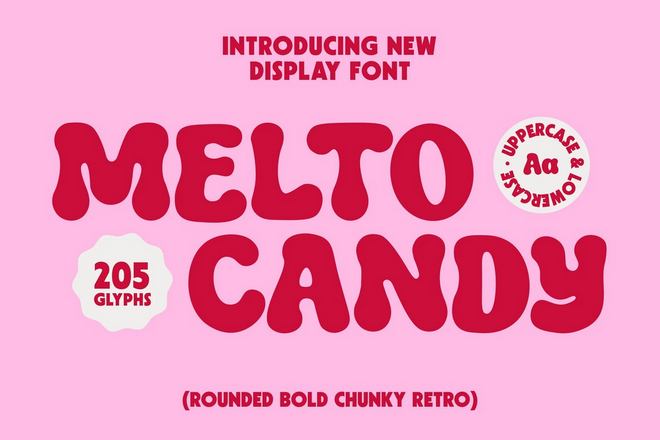
20+ Tasty Candy Fonts for Sweet & Colorful Designs
Nothing adds instant fun to a design quite like a bold candy-inspired font.
Candy fonts are designed with soft curves, bubble shapes, and exaggerated lettering styles that mimic the playful look of sweets and dessert packaging. The result is typography that feels bright, energetic, and full of personality.
These fonts are especially popular in packaging, social media graphics, party invitations, café branding, and children’s designs where bold visual impact matters most.
Below, you’ll discover a curated collection of the best candy fonts for sweet and colorful designs.
These fonts will help you create playful visuals that feel vibrant, cheerful, and impossible to resist.
Lolipop - Fun Candy Font
Lolipop is a playful, script-style typeface perfect for adding whimsy to invitations, branding, and posters. With tons of glyphs, alternates, and ligatures, this font offers creative flexibility. Accessible on both PC and Mac, it supports multilingual use and is perfect for various sweet and kid-friendly product packaging designs.
Candy Machine - Playful Display Font
Candy Machine is a candy-themed font known for its smooth curves and elegant ligatures, perfect for adding charm to your projects. Ideal for logos, invitations, branding, packaging, and more, this versatile font shines in both large and small sizes. It supports various languages and offers uppercase, lowercase, punctuation, and symbols in OTF and TTF formats.
Candy Cake - Sweet Candy Font
Candy Cake is a charming and playful candy-themed font that adds a delightful touch to any design project. With its sweet and cute cartoon comic style, it’s perfect for bringing a fun, whimsical element to your work. Available in TTF, OTF, and WOFF formats, it’s a versatile choice for all your creative needs.
Booba Candy - Bold Creative Font
Booba Candy is a bold and playful candy-themed font inspired by bubbles and balloons. With its light and airy feel, this typeface is perfect for creative projects, offering a soft and friendly vibe with its round edges. Ideal for headings and logos, Booba Candy is versatile and easy to read, suitable for both digital and print media.
Candy Form - Playful Display Font
Candy Form features thick, rounded letters with a soft, inflated look that creates a friendly and approachable feel. Ideal for candy-themed designs, it suits logos, packaging, posters, and more. Its bold structure ensures strong visibility, making it perfect for joyful branding. With expressive shapes and easy readability, it’s a fun choice for both creative studios and confectionery businesses.
Sour Candy - Handwritten Font
Sour Candy is a bright and energetic handwritten font that captures the playful essence of its name. With smooth curves and bouncy strokes, it adds a lively, cheerful touch to any project. This font includes uppercase and lowercase letters, numbers, punctuation, multilingual support, and is PUA encoded.
Melto Candy - Chunky Display Font
Melto Candy is a bold, chunky display font that exudes a playful and cheerful vibe with its sweet, bubbly letterforms. Perfect for grabbing attention, it enhances branding, packaging, posters, kids’ designs, logos, and social media graphics. With its soft curves and candy-inspired style, Melto Candy brings fun and vibrant energy to any project.
Sweet Candy - Creative Script Font
Sweet Candy Script is a delightful candy-themed font that combines beauty and modernity. Perfect for weddings, branding, logos, and quotes, it adds a charming touch to any project. Sweet Candy includes ligature, beautiful alternates, and multilingual support, available in OTF, TTF, and WOFF formats.
Candy Machine - Playful Font
Candy Machine is a playful and versatile candy-themed font that adds visual elegance with its smooth curves and beautiful ligatures. Perfect for projects like logos, invitations, branding, and more, it suits any size and sector, from personal creations to corporate designs. With support for multiple languages and OpenType features, Candy Machine ensures your work stands out.
Cold Snowflake - Quirky Candy Font
Cold Snowflake is a playful typeface capturing the essence of ice cream and candy with bold, chubby letterforms. With twelve charming variations inspired by sweet treats, it’s perfect for children’s projects, crafting, and vibrant designs. Easy to install and versatile, it includes uppercase, lowercase, numerals, and more, adding whimsy to any creative project.
Candy Yefumy - Playful Title Font
Candy Yefumy is a delightful and whimsical display font that brings a sugary sparkle to your creative projects. Perfect for adding joy and charm, it includes stylistic alternates, ligatures, and multilingual support. Easy to install and compatible with both PC and Mac, it works seamlessly with Adobe and Microsoft programs.
Guava Candy - Kids Gaming Font
Guava Candy is a vibrant, playful typeface perfect for adding a touch of fun to your projects. With its chunky, bold design and soft rounded edges, it captures the essence of a candy store explosion. Ideal for game titles, snack packaging, and colorful branding, this font makes any message pop with sweet, joyful energy.
Gummy Pop - Funny Candy Font
Gummy Pop is a fun and lively candy-themed font inspired by soft jelly shapes and bubbly forms. With its rounded edges and smooth, puffy structure, it adds a sweet and energetic personality to any project. Perfect for food branding, kids’ products, packaging, and social media, it includes 223 glyphs in multiple formats and languages.
Candira - Unique Candy Font
Candira is a delightful display font infused with a playful candy theme, perfect for adding a sweet touch to your projects. This versatile font includes Regular, OTF, TTF, and WOFF formats, making it easy to use across different platforms. Explore this creative asset for an array of fun and unique design possibilities.
Candy Christmas - Season-Themed Font
Candy Christmas is a delightful season-themed font inspired by the elegance of calligraphy. Perfect for displays, t-shirt designs, crafts, and more, it features uppercase, lowercase, numbers, punctuation, and multilingual support. This font comes as both a .otf and .ttf file and offers PUA encoding and Opentype features, ensuring versatility for your creative projects.
Candyful - Fun Handwritten Font
Candyful is a delightful handwritten font with a playful, candy-themed design, perfect for adding a fun twist to children’s projects or school assignments. It includes uppercase, lowercase, symbols, punctuation, numerals, and alternate characters with multilingual support. Available in OTF, TTF, and WOFF formats.
Smiley Candy - Cute Emoji Font
Infuse your designs with playful energy using Smiley Candy. Perfect for children’s activities, party graphics, and more, this font boasts expressive letterforms and joyful personality. With five style variations and strong readability, it offers creative flexibility for lively, eye-catching text in both print and digital projects. Smiley Candy supports multiple languages, making it versatile and engaging.
Colorful Candy - Quirky Display Font
Colorful Candy is a playful, hand-lettered typeface perfect for adding a fun touch to storybooks, illustrations, and more. With endless possibilities for mixing styles, it’s ideal for posters, greeting cards, and logos. Available in OTF, TTF, and WOFF formats, it features uppercase, lowercase, numerals, punctuation, and Opentype options for versatile creative use.
Best Free Candy Fonts
Sweet Candy - Free Candy Themed Font
Sweet Candy is a delightful script font that brings a playful, sweet energy to the page. Instead of stiff or boring letters, it uses smooth, flowing curves that look like gourmet treats. It strikes a wonderful balance because it is neat and stylish enough for professional projects, but has a lighthearted charm that keeps it from feeling stuffy.
Candy Psyche - Free Candy Themed Font
Candy Psyche is a beautiful serif font that perfectly blends modern elegance with a playful, sweet aesthetic. It features a unique style that balances chic, high-fashion lines with soft, candy-inspired curves, making it an excellent choice for eye-catching typography. This font is incredibly versatile and works wonderfully for logos, branding projects, website headers, magazine layouts, and social media graphics.
Christmas Candy - Free Candy Cane Font
Christmas Candy is a festive, decorative font bursting with holiday cheer and whimsical charm. Its playful letterforms evoke the nostalgia of classic winter treats, featuring bold and cheerful shapes that instantly brighten any canvas. It is an ideal pick for seasonal greeting cards, party invitations, or cozy holiday marketing materials where you want your text to feel warm and inviting.
Candy Clauseis - Free Handlettering Font
Candy Clauseis is a bold and trendy display font that brings a unique, hand-lettered touch to your creative projects. It combines cute, rounded shapes with firm, solid lines to deliver a look that is both funny and fashionable. It stands out beautifully on custom invitations, personalized monograms, and modern product packaging that needs an energetic splash of personality.